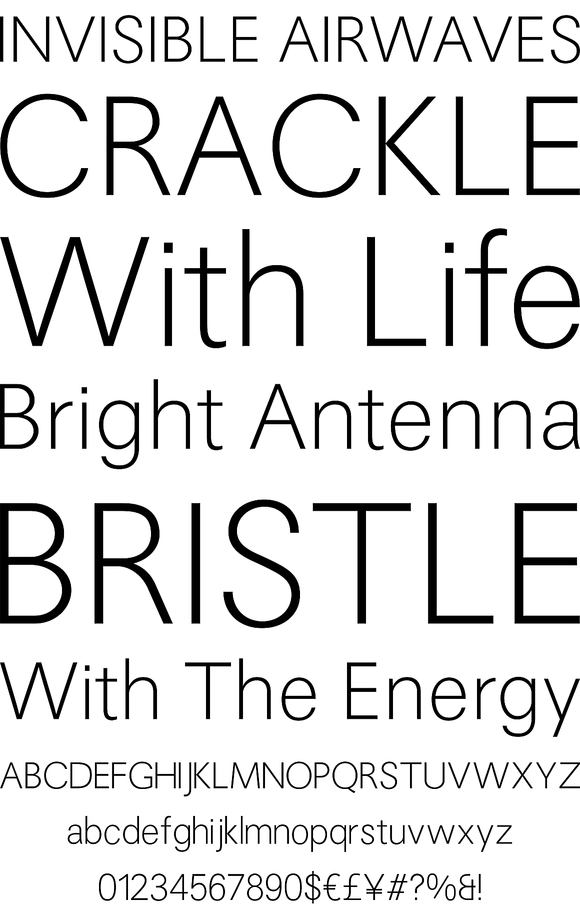
Avus Pro
Foundry: RMU Typedesign
Gert Wunderlich’s Maxima font family in a new, most extended redesign by RMU Typedesign. This font family covers all major European languages as well as Greek and those written in Cyrillic letters.